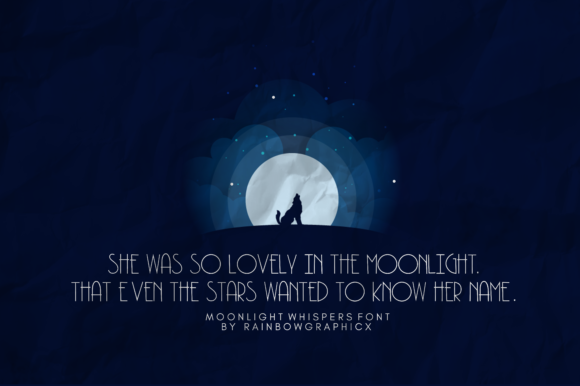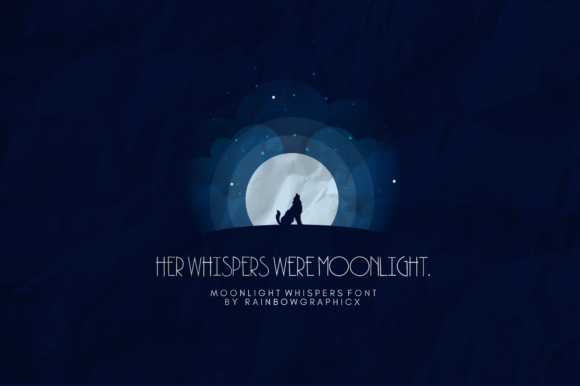
HomeScript FontsMoonlight Whispers Font Script Fonts Moonlight Whispers Font FacebookXPinterestWhatsApp Moonlight Whispers Font Poster 2 Moonlight Whispers Font Poster 3 About Moonlight Whispers Font Moonlight Whispers is a classic display font with an editorial feel. Fall in love with its modern elegance. DOWNLOAD ON CREATIVE FABRICAThis font is sold and delivered by Creative Fabrica. Font Canyon may earn a commission if you buy through this link. People also explored Male Oxblood Black Bella Canvas 3001 Fujira Font Still Christmas Font Supreme Roboto Font Khalima Font Adellia Heart Font Kamila Dance Font Candyland Font 346 0 TagsMoonlight Whispers Font Previous articleArten FontNext articleDental Font LEAVE A REPLY Cancel reply Comment: Please enter your comment! Name:* Please enter your name here Email:* You have entered an incorrect email address! Please enter your email address here Website: Save my name, email, and website in this browser for the next time I comment. Personal Use Free Fakedes Personal Use Free Read more about this font Trunk Shaped Personal Use Free Read more about this font Malinda Personal Use Free Read more about this font Ontel Personal Use Free Read more about this font BLOG Best Fonts for YouTube Videos: Make Your Thumbnails Stand Out Best Fonts for YouTube Videos: Make Your Thumbnails Stand Out Choosing the right font can make a massive difference in how your YouTube videos perform.... Free vs Paid Fonts: Why Investing in Premium Fonts Is Worth It Elegant Wedding Invitation Fonts – Handwritten & Script Fonts Where to Buy American Fonts Online in 2024